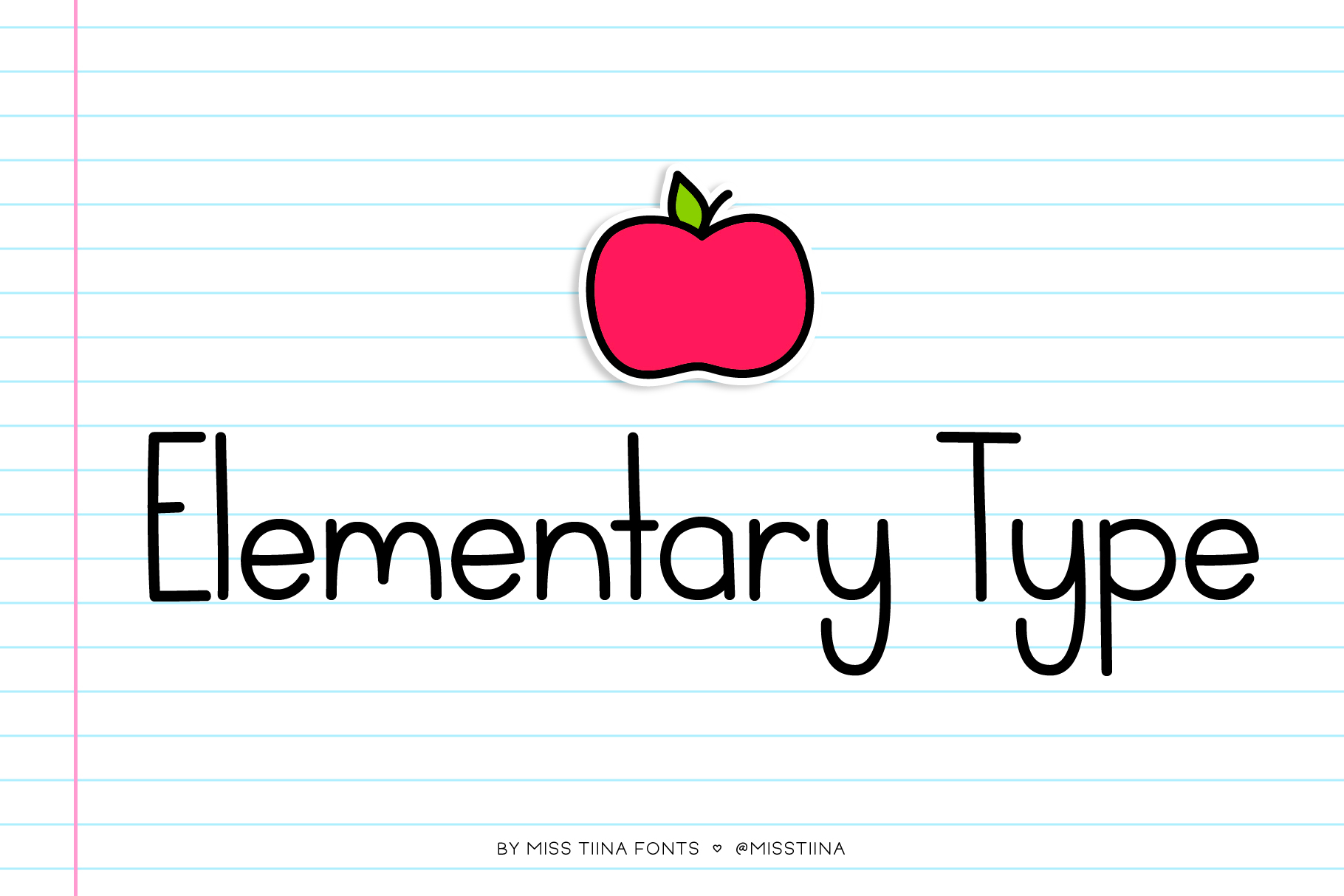
MTF Elementary Type
MTF Elementary Type is a hand drawn font family published by Miss Tiina Fonts .
Elementary Type is a cute, friendly and playful handwritten font perfect for school projects, lesson sheets, children’s books, stationery, planners and many other various projects. This font is especially crafted for children and teachers and also it includes 10 super cute school-themed doodles.